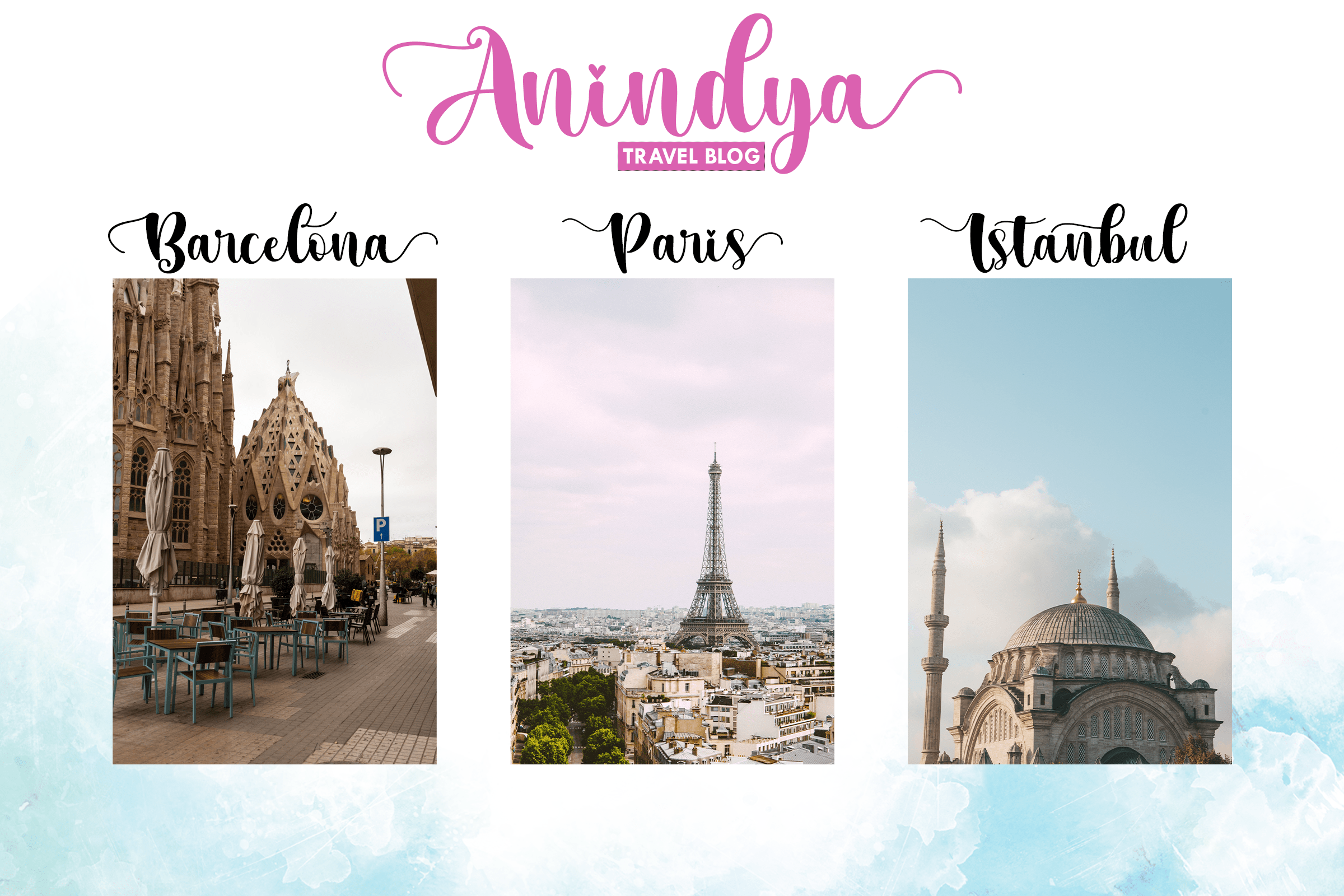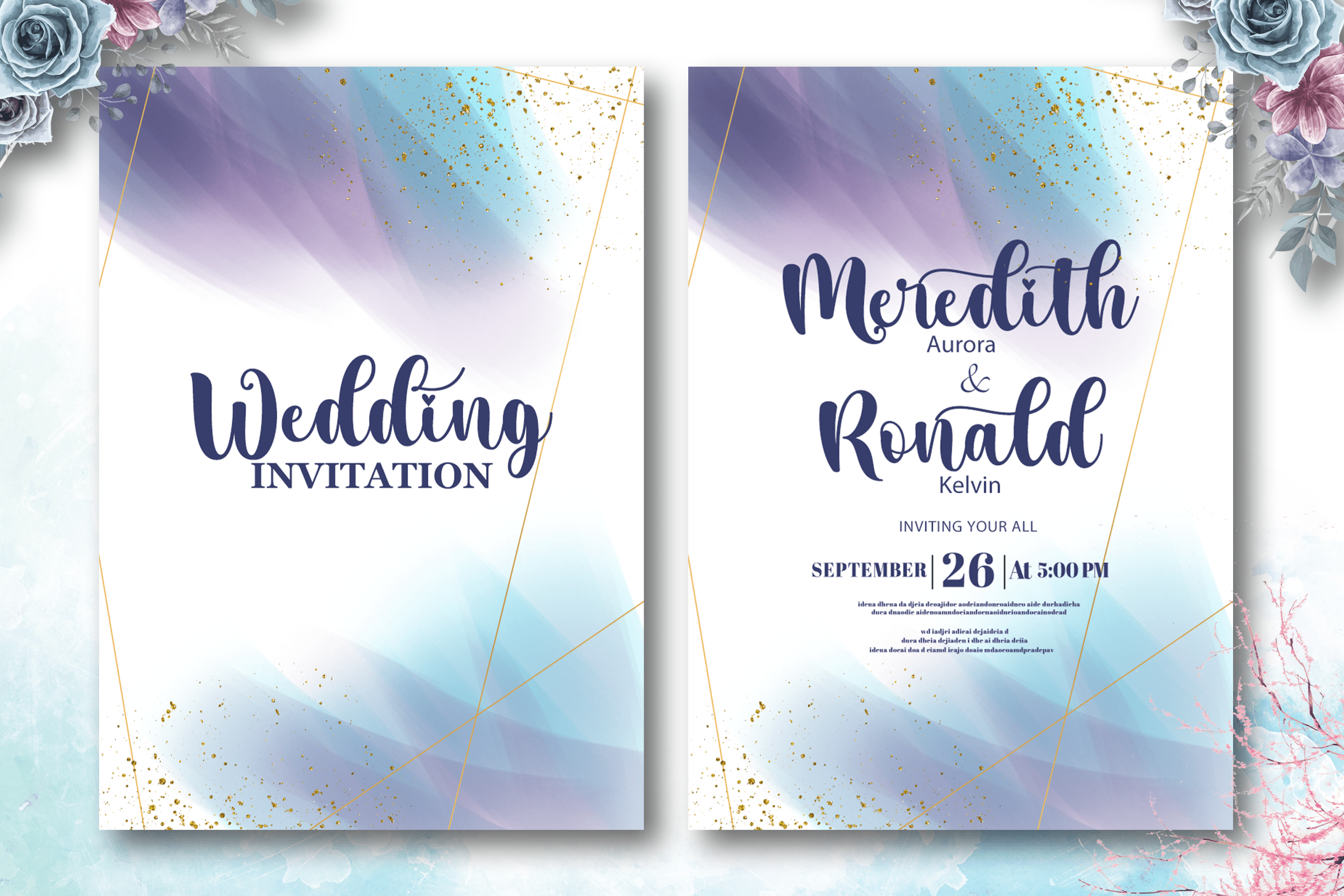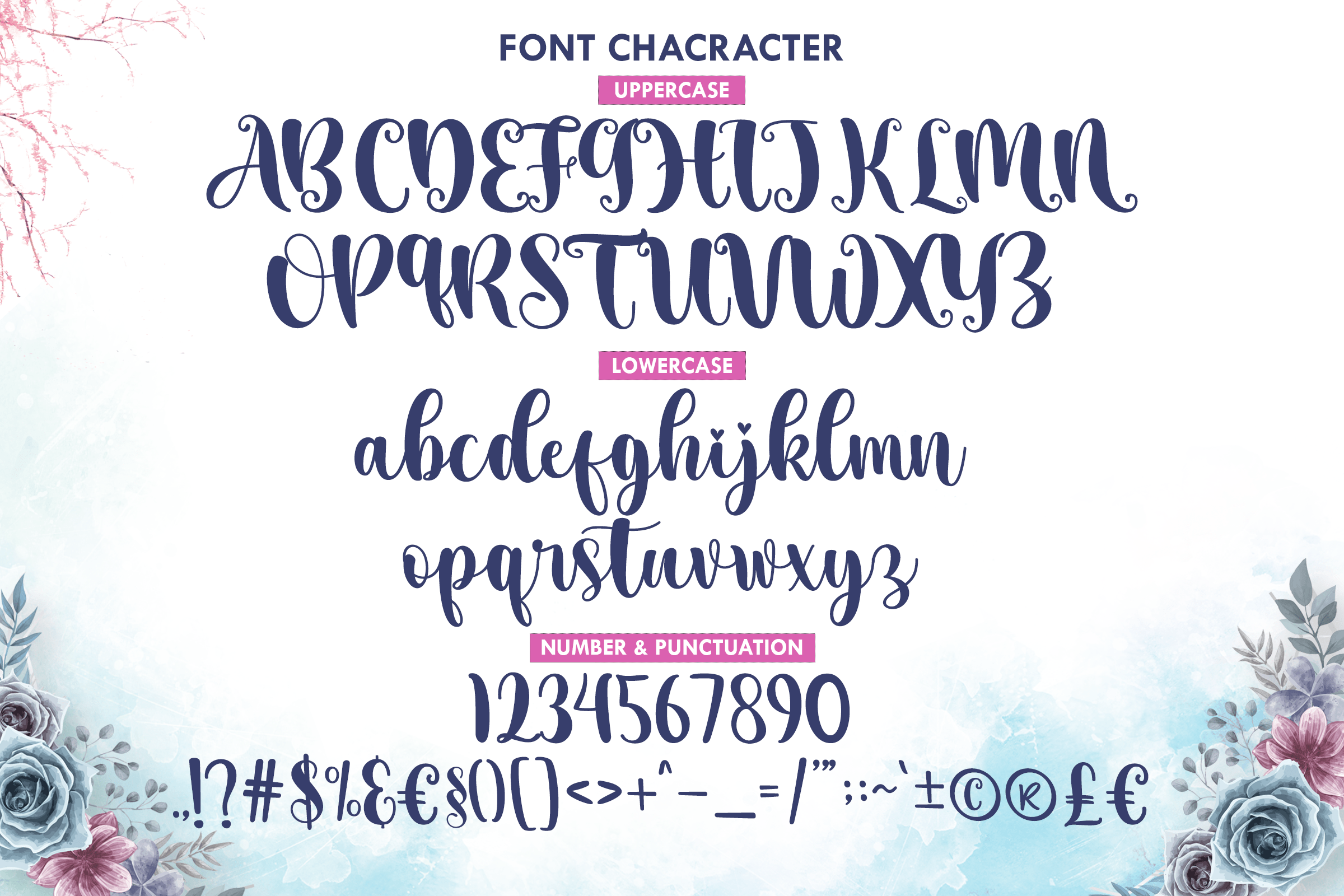
Aesthetic Midnight Font
Aesthetic Midnight Calligraphy Font
Hi Guys. We are introducing our new font’s product “Aesthetic Midnight” from our studio Elevatype Co. Aesthetic Midnight is modern calligraphy script font that very unique with. this font is great for your design project like banner, poster, invitation, etc. I hope all of you like this font